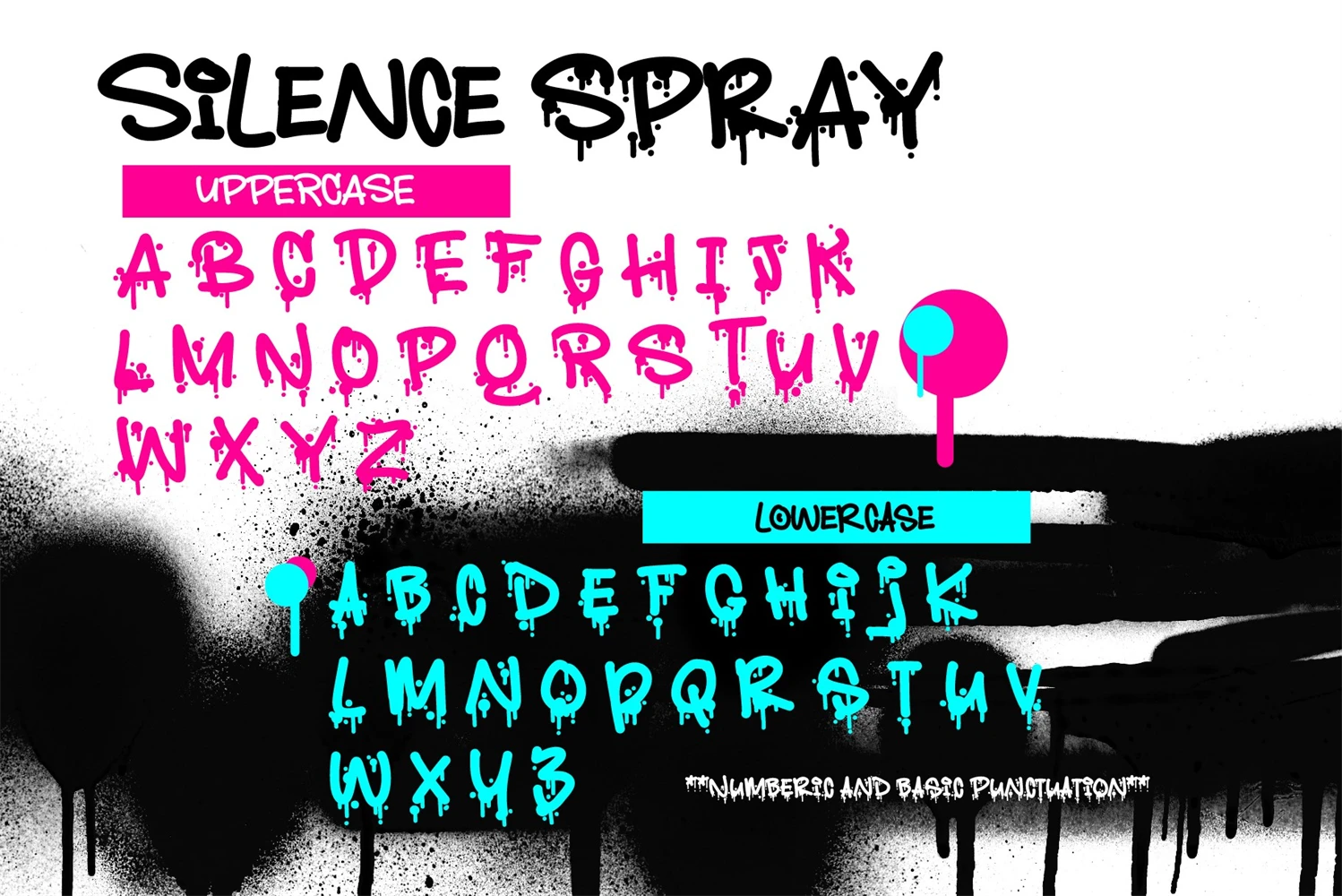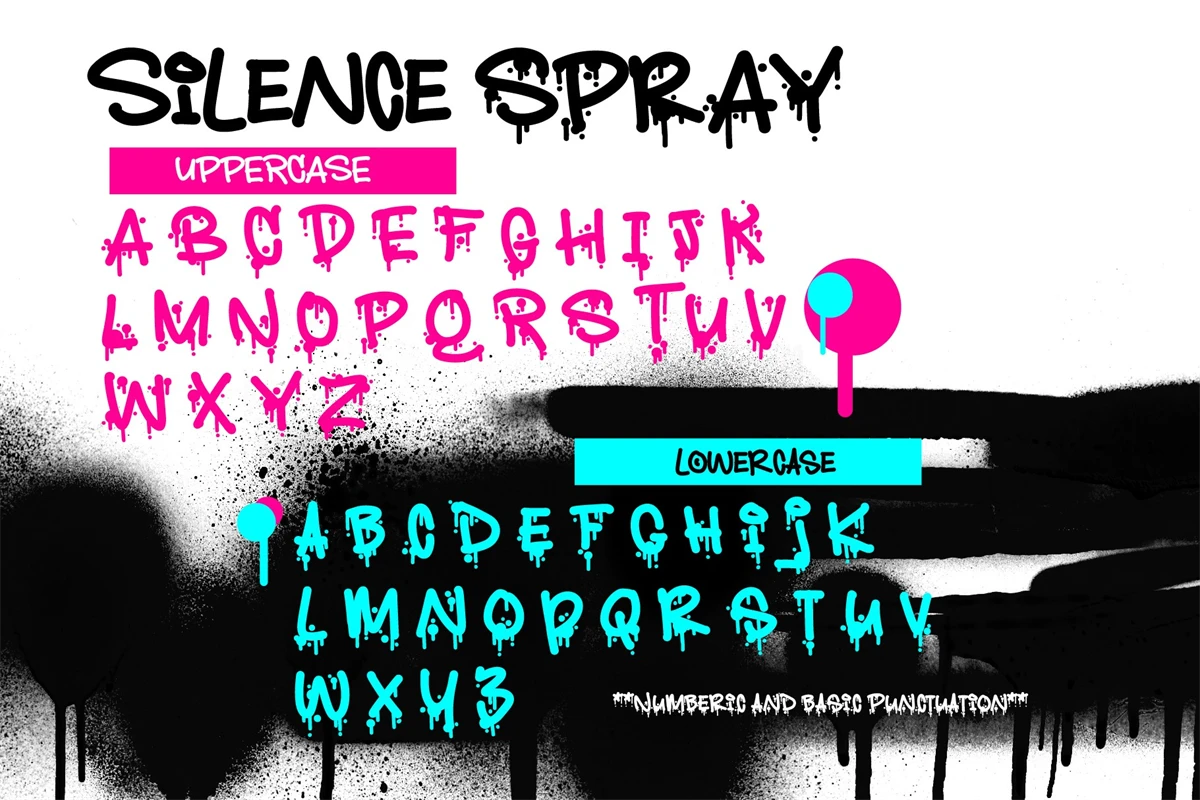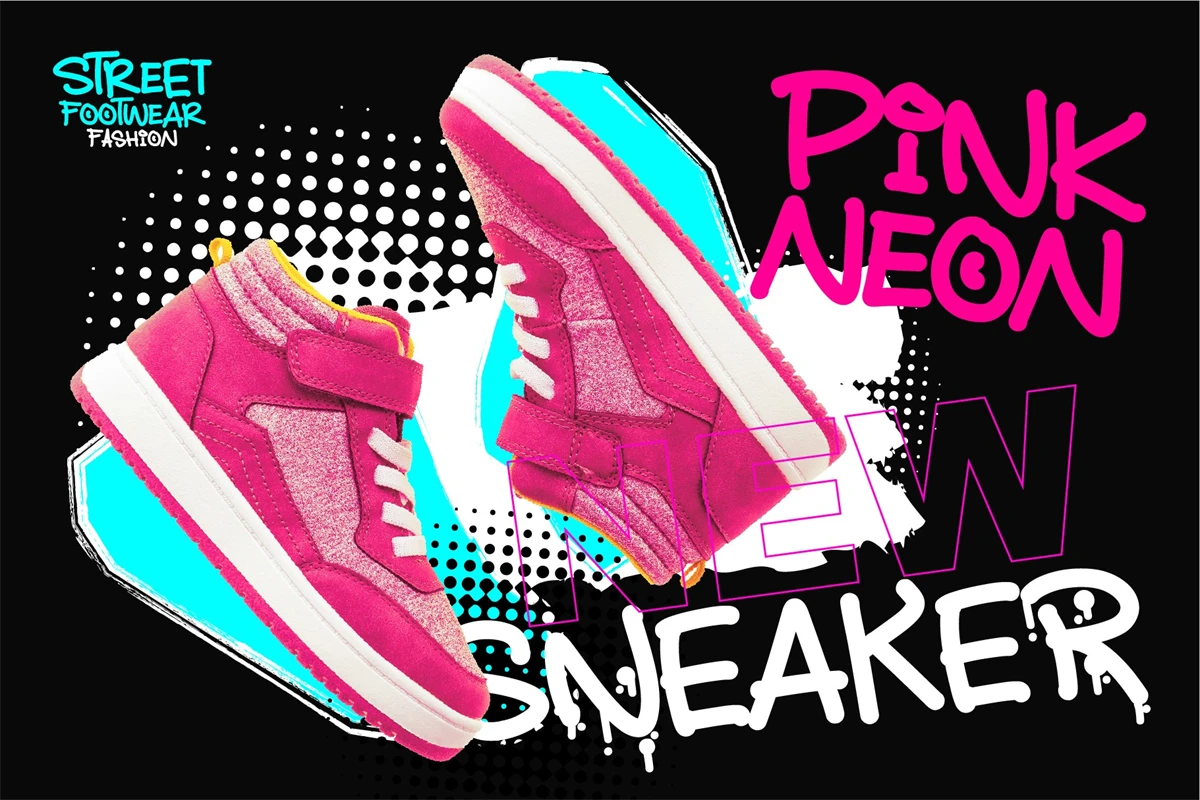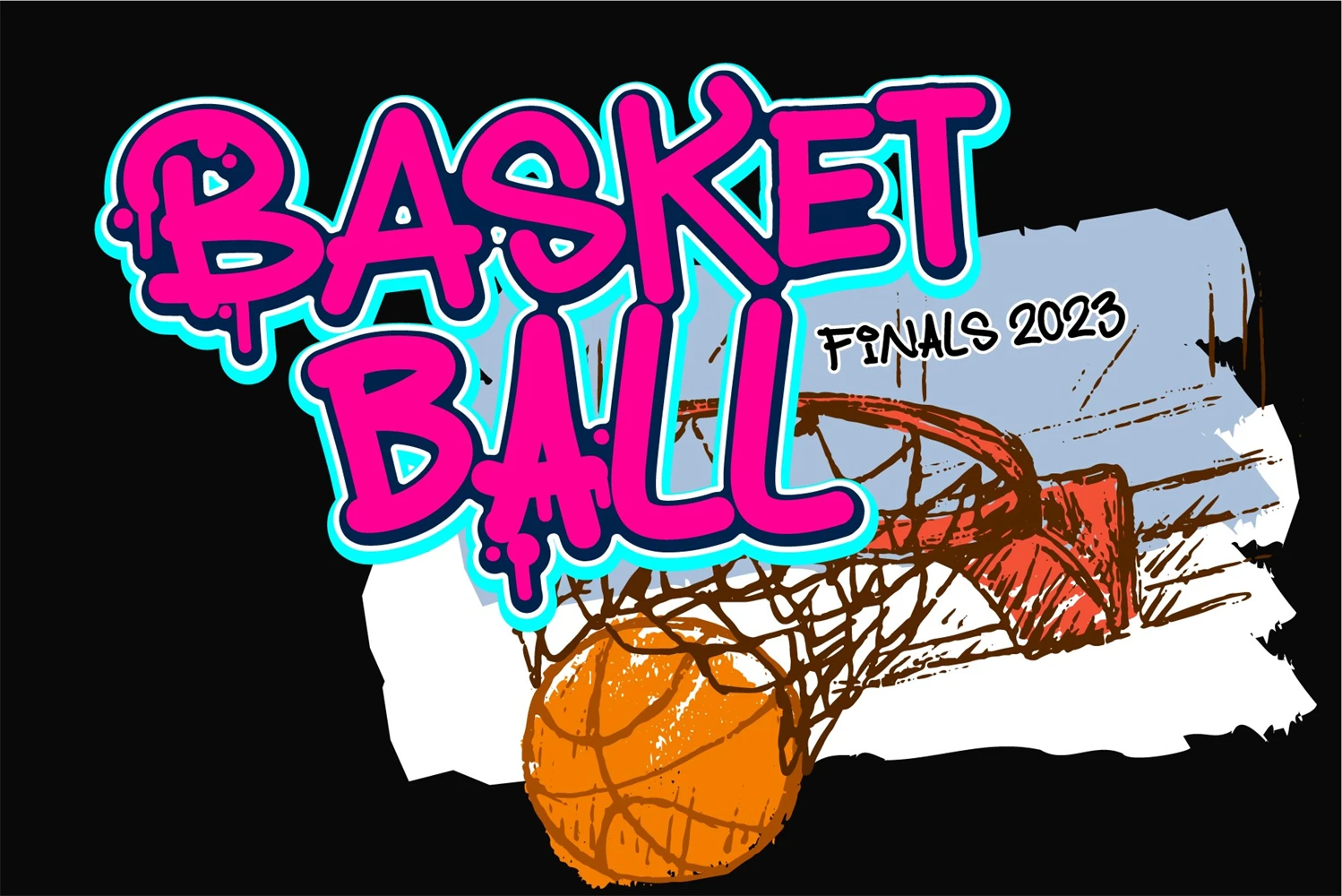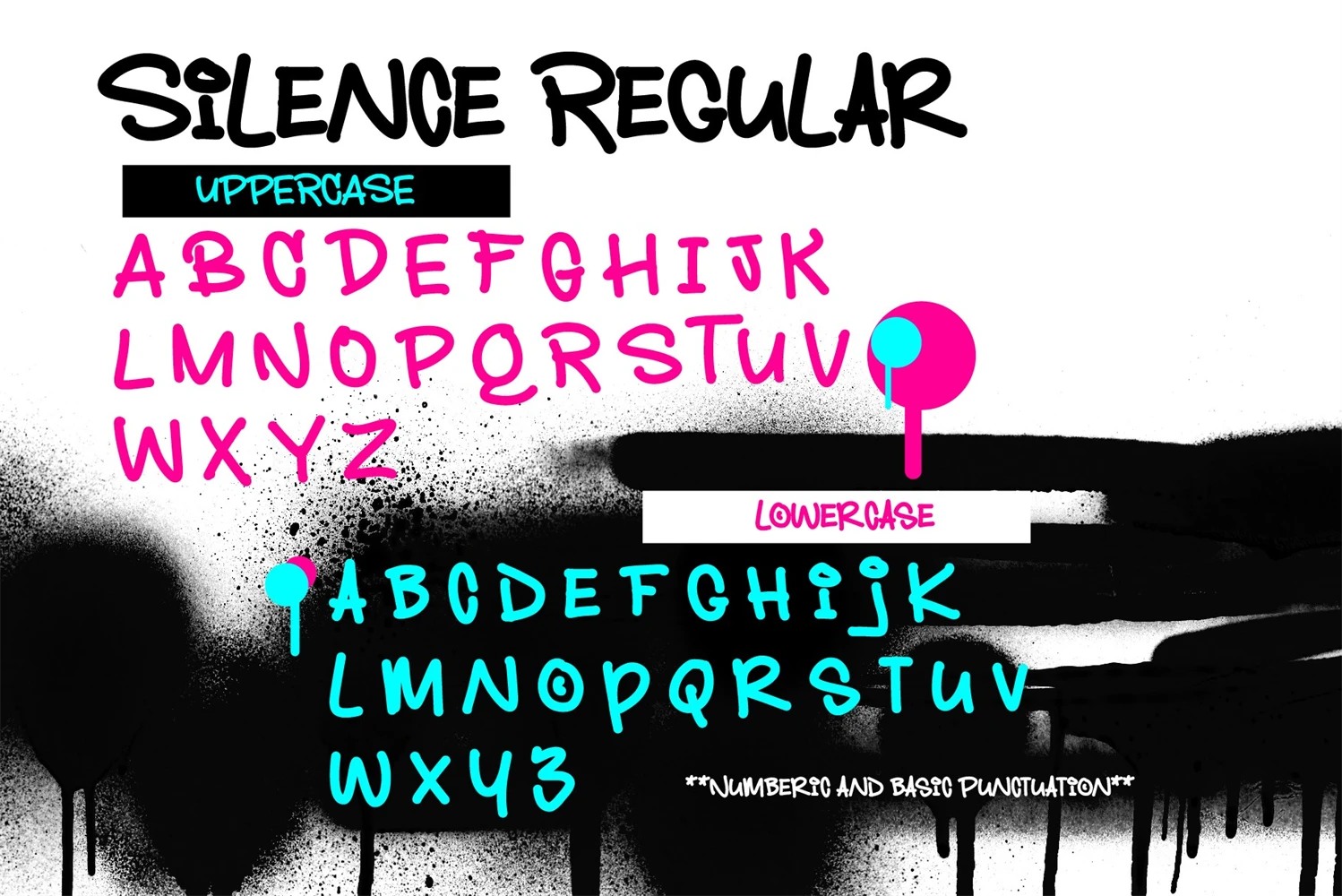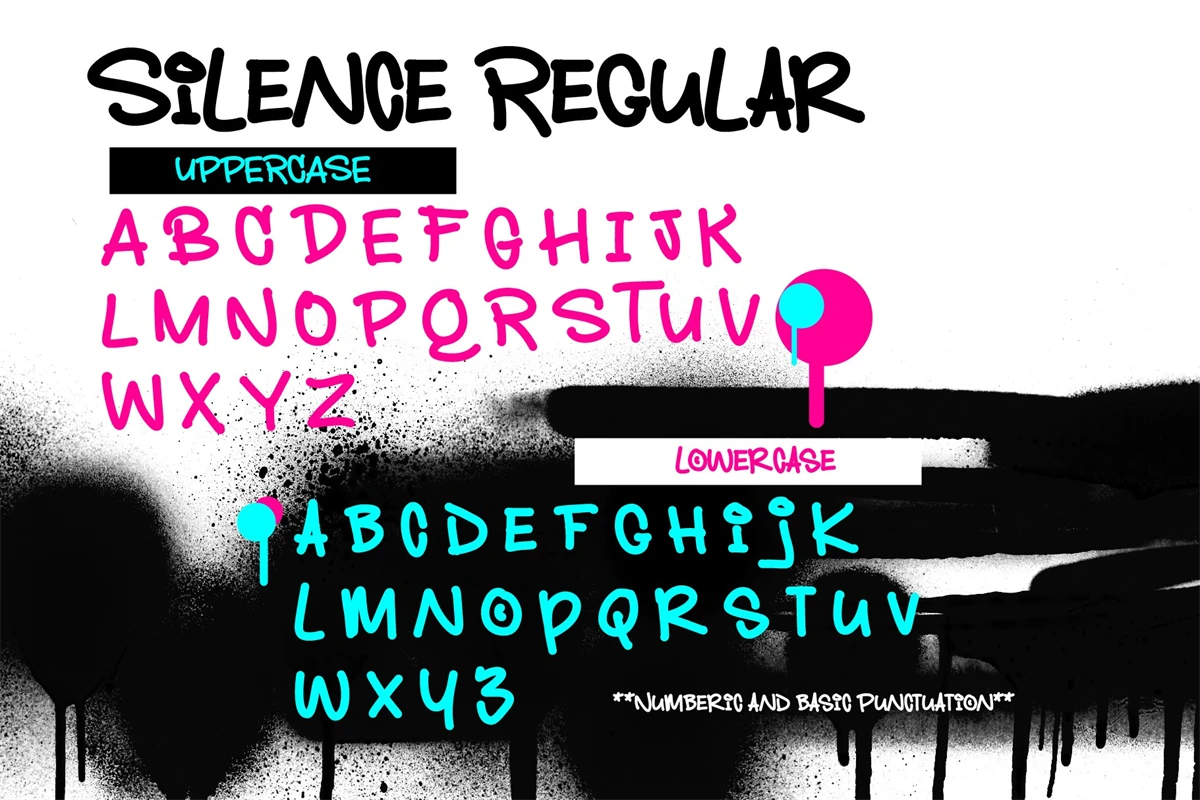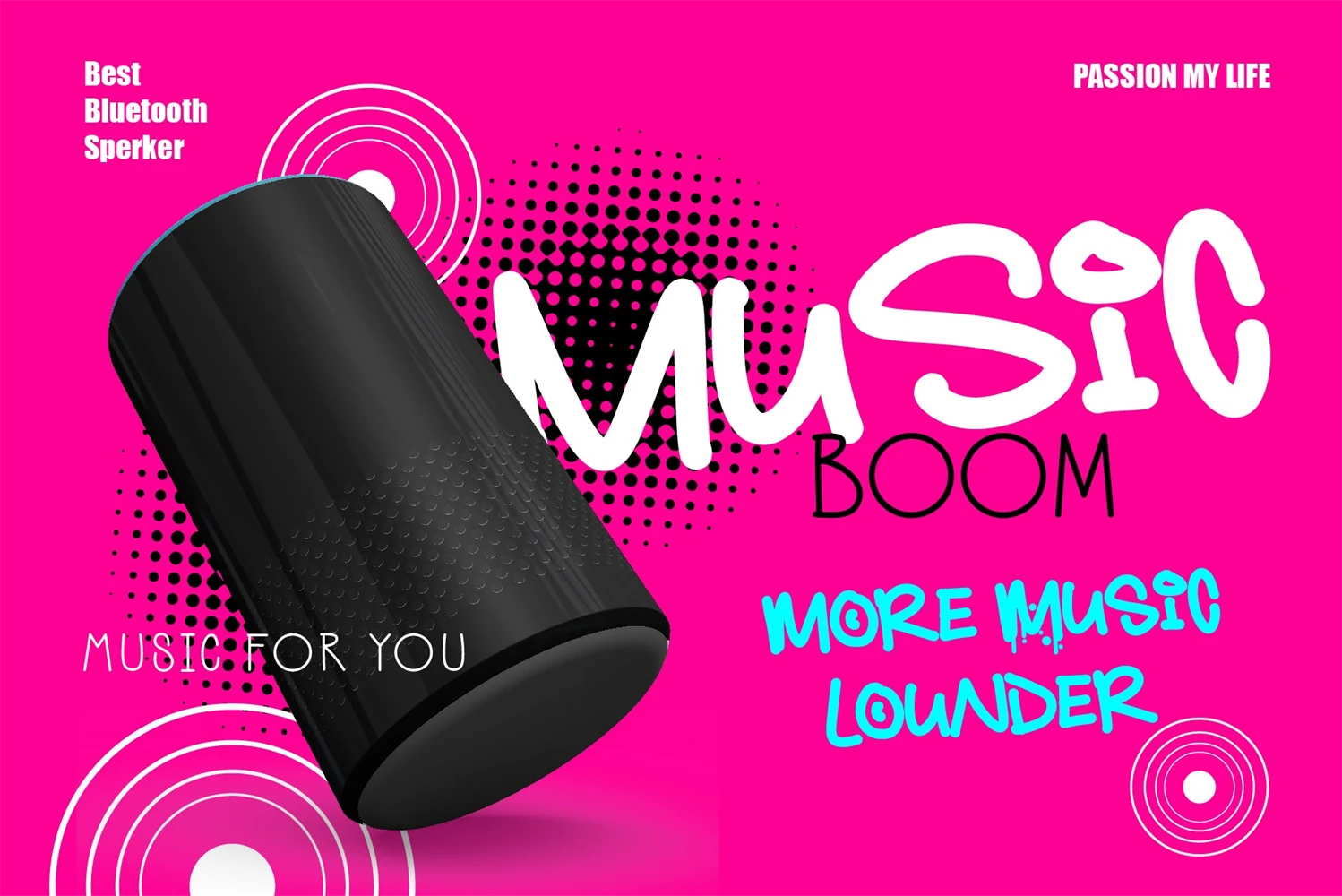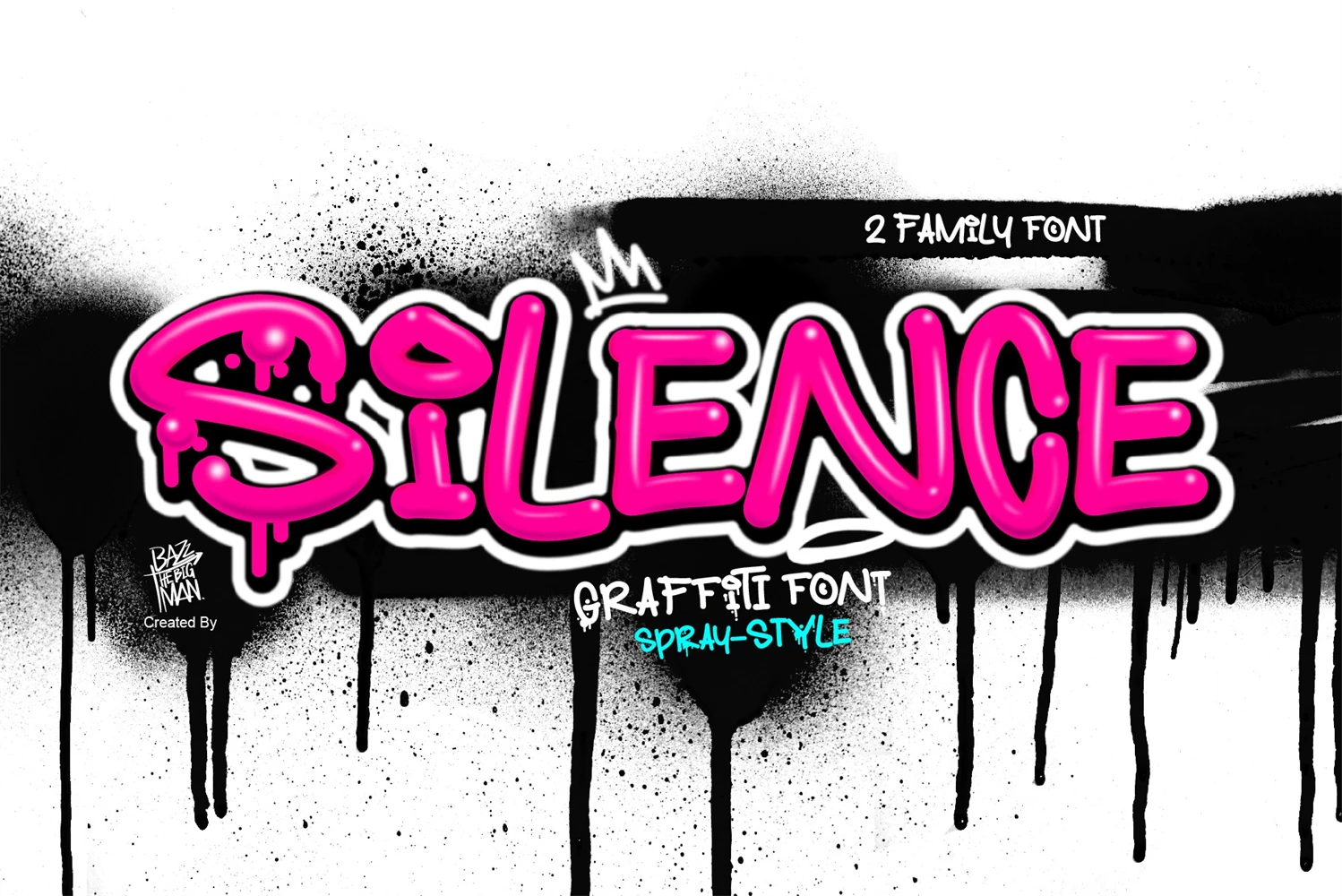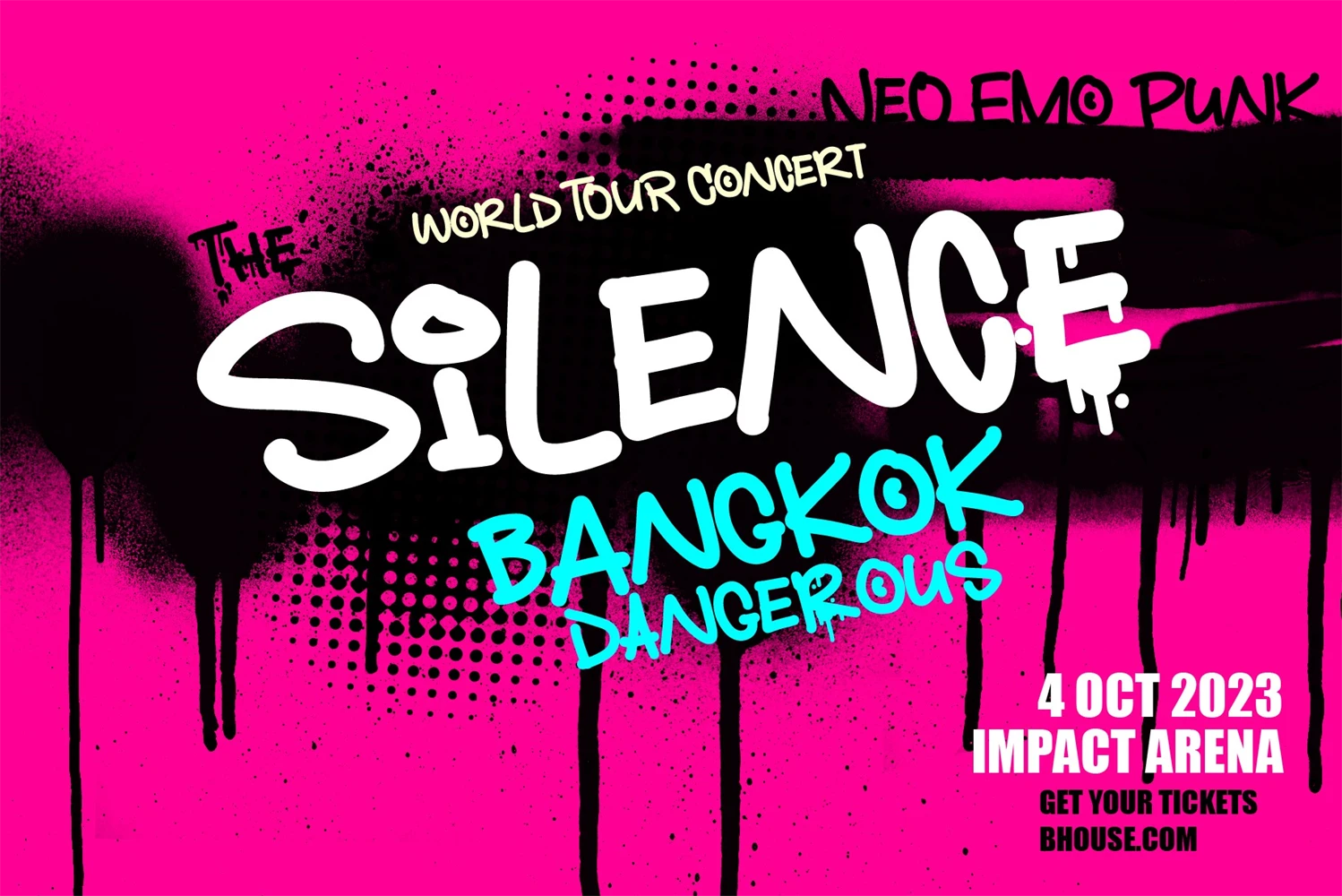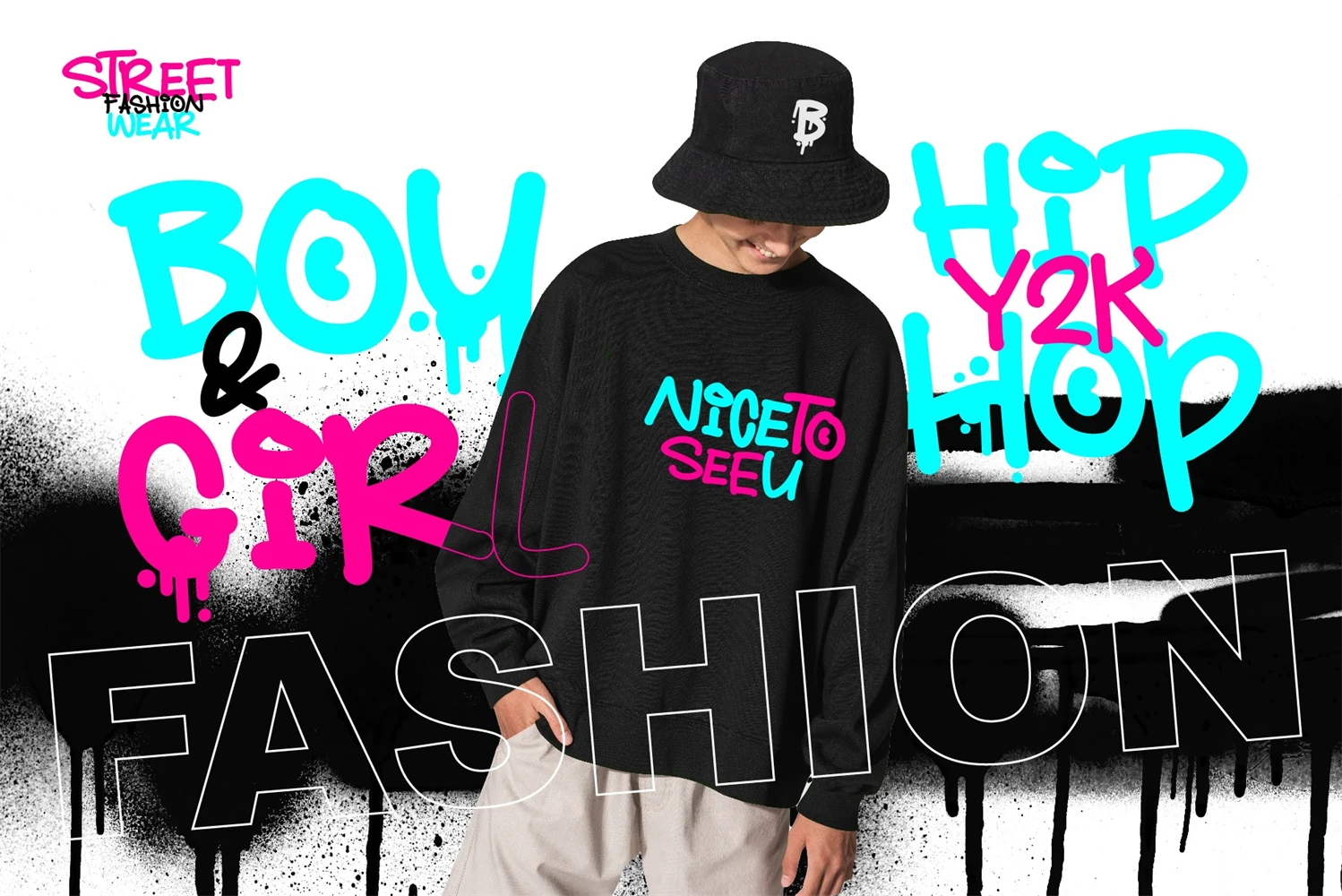
Silence is an awesome, graffiti-style display font that has a cool and funny, street art vibe. This font is suitable for designs such as t-shirts, sportswear, logos, advertisements, clothing, and more.